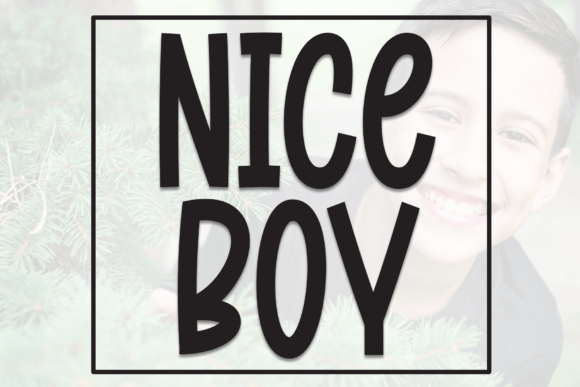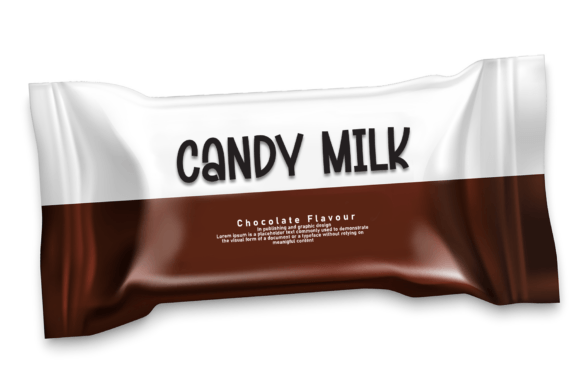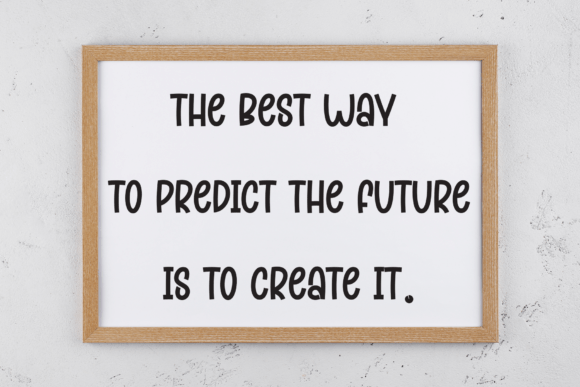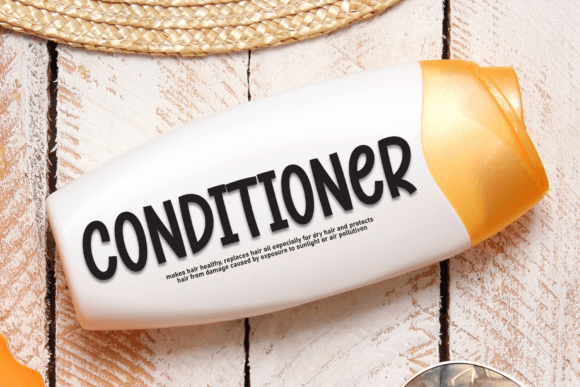
Nice Boy Font
About the Nice Boy Font
Unleash your creativity with Nice Boy Font, a versatile font perfect for a wide range of applications. Nice Boy
is a charming handmade font that features playful, rounded letters. Its friendly style makes it perfect for designs that need a warm and inviting touch. This font is great for children’s books, greeting cards, and fun posters, adding a cheerful vibe to any project.
Nice Boy’s playful roundness excels in headlines, short text blocks on packaging, and children’s book titles. It also works well for branding projects targeting a younger demographic or those emphasizing friendliness and approachability. However, its charm is less effective in body text or UI elements where readability over long stretches is crucial. The rounded forms can hinder quick scanning in smaller sizes.
Pairing Nice Boy with a clean sans-serif like Open Sans for body copy provides excellent contrast and readability. For a more playful approach, a geometric sans-serif such as Futura adds a modern touch that complements its handmade charm. A simple serif like Lora could also work well to provide a sophisticated balance to its informal style.
Nice Boy’s overall personality is undeniably friendly and approachable, conveying a sense of warmth and lightheartedness. It’s best suited for brands and projects seeking a cheerful, approachable aesthetic.